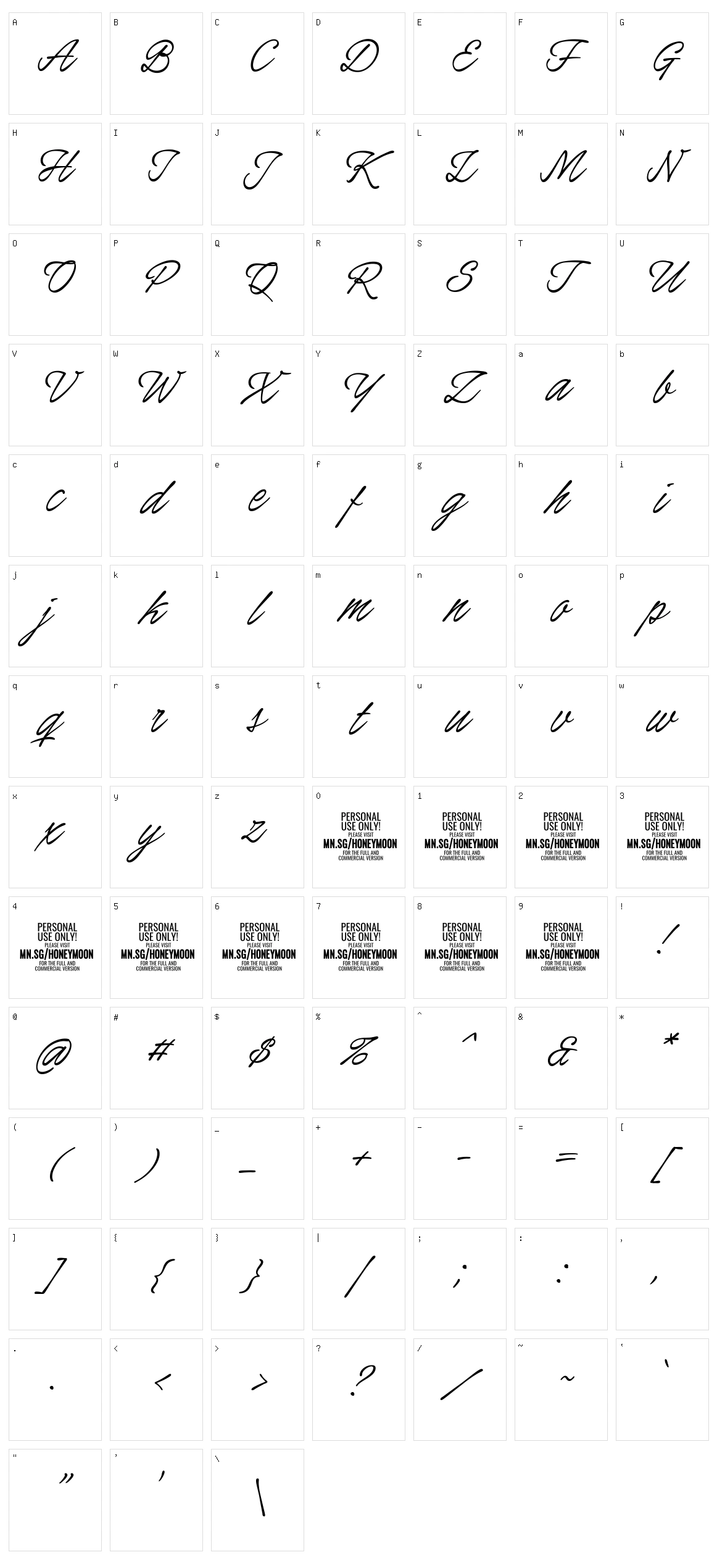
Honeymoon is a handwritten script typeface.
It stands for confidence, effectivity and honesty.
The letters' sharp and thin ink strokes cuts through the sentences like a razor.
The font comes in both Regular and Bold, and includes an Upright version.
It has multiple stylistic and contextual alternates, such as connecting pairs,
final and initial alternates to make the lettering look as natural as possible.